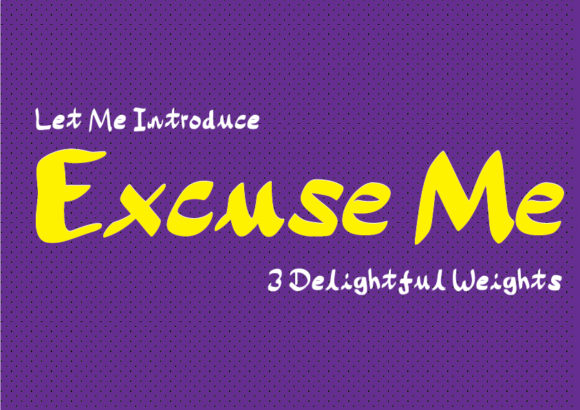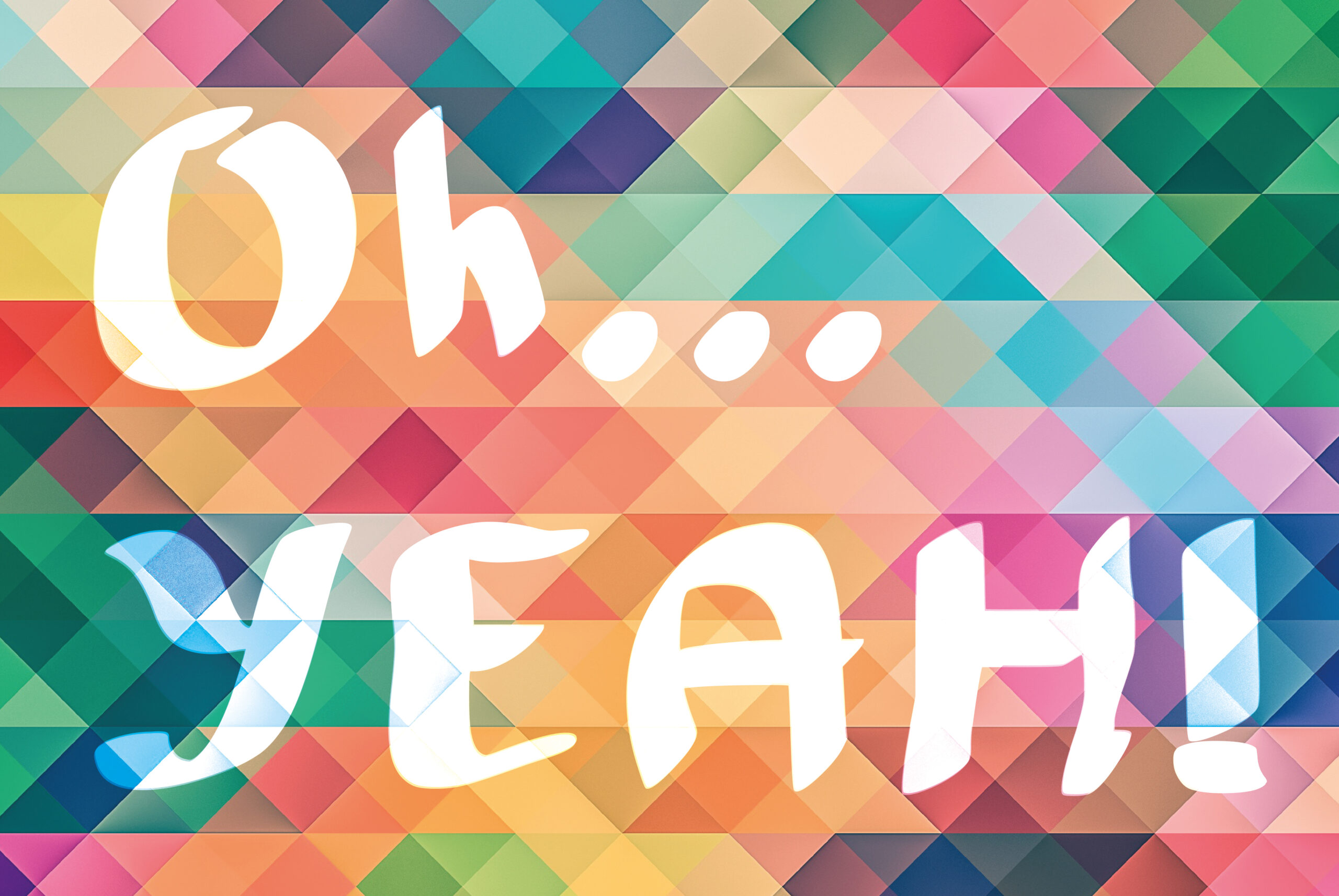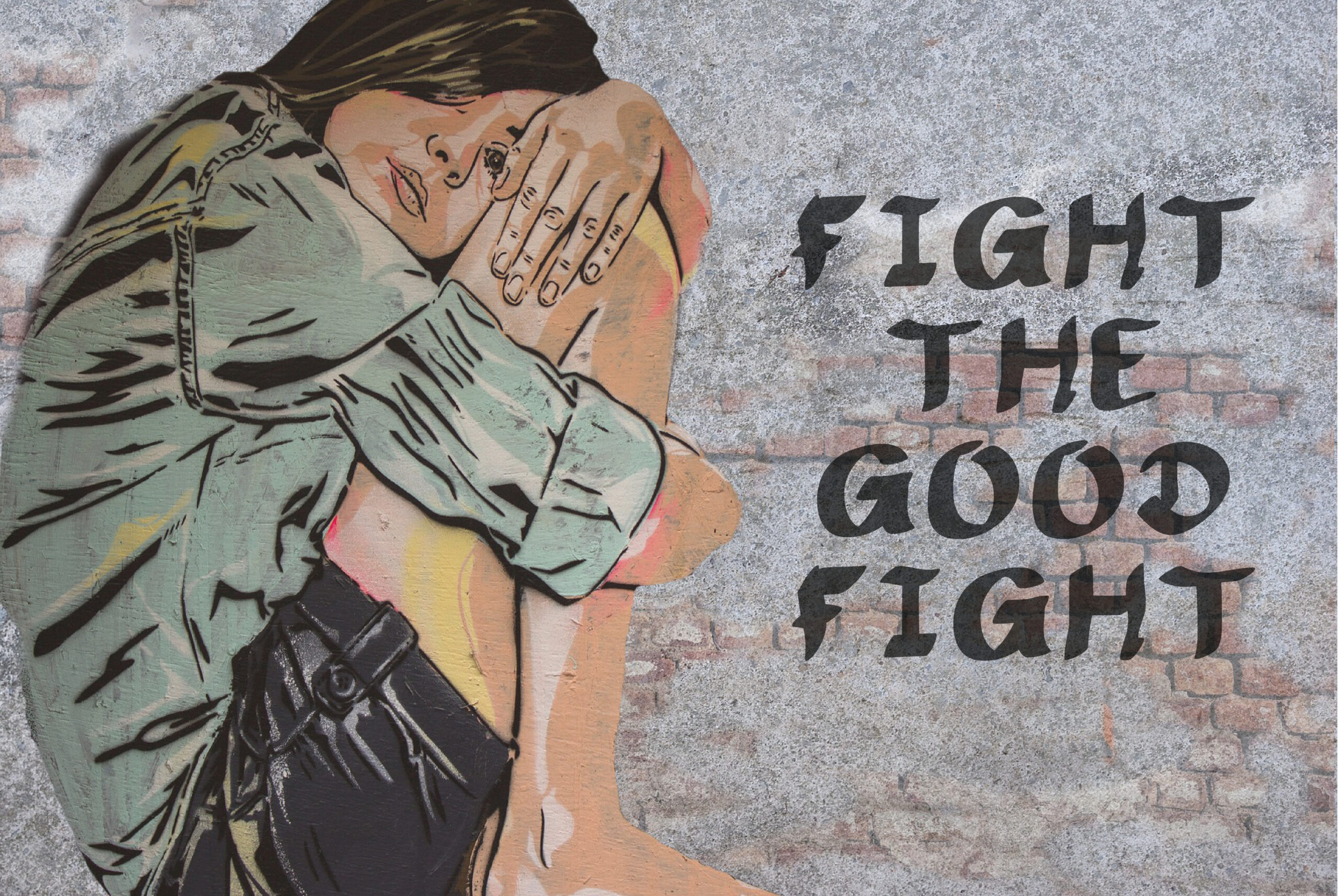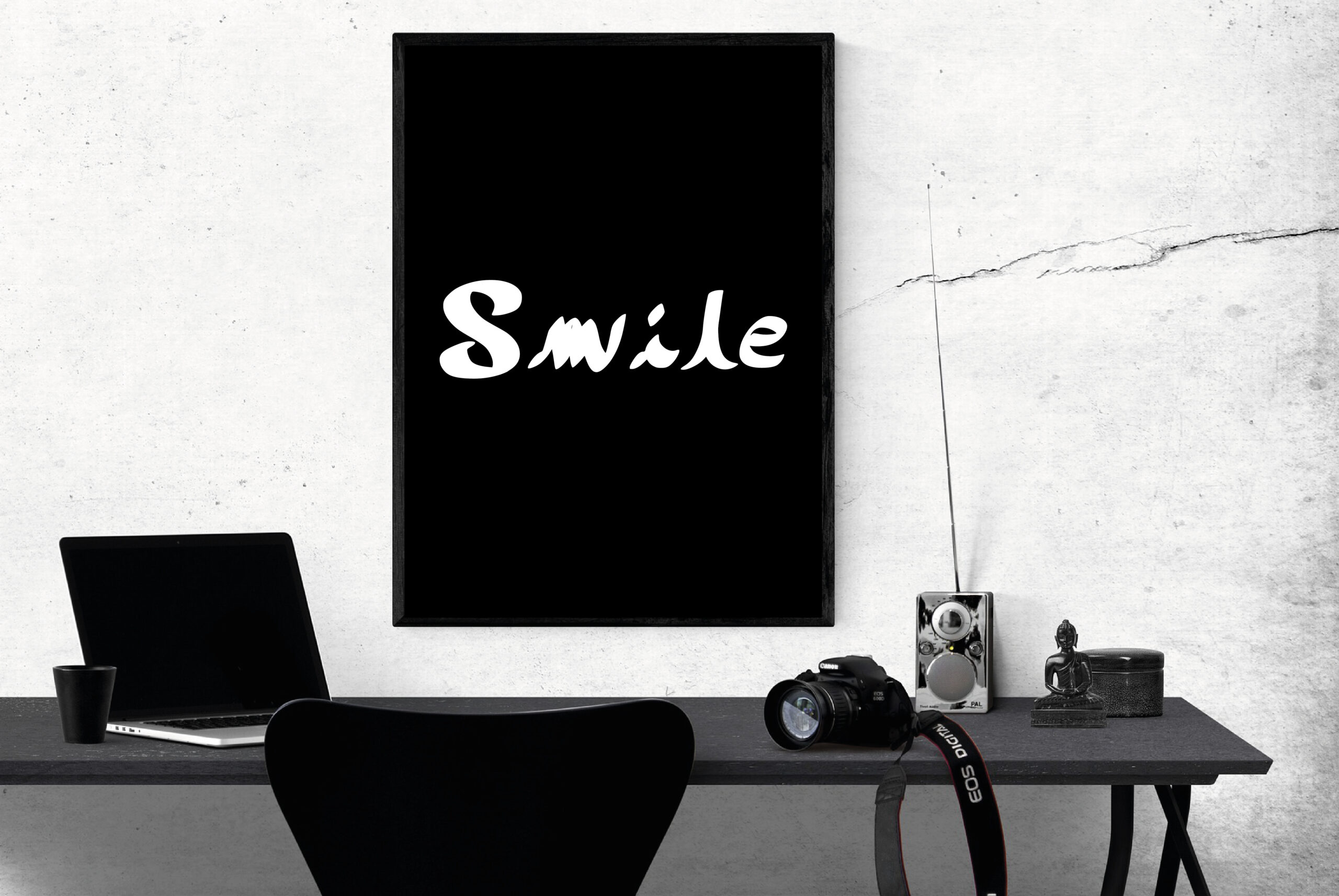
Excuse Me is a stunning handmade font family, bold and regular. The overall feel of the font is bold with a script feel to it as it take inspiration to joined up writing with added tails to the end of the tops and bottom of the font. The font was created by hand with calligraphy feel to the brush; mix it up or use the two cases separately to create a lovely mix of styles.